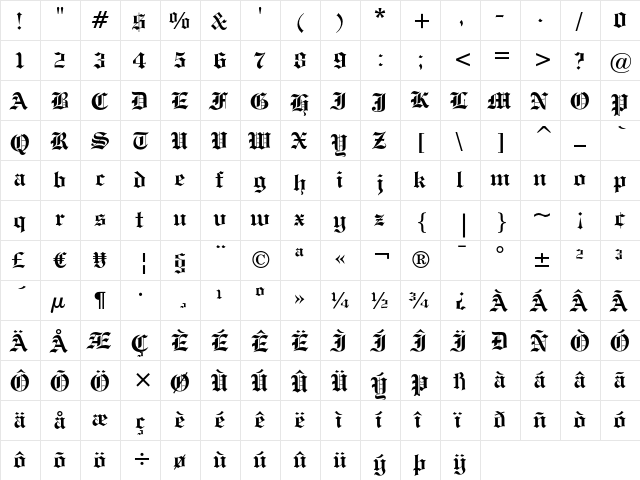
Engravers' Old English Bold
Design Context for Engravers' Old English Typeface
Engravers' Old English takes a measured approach to typography — its balanced proportions and neutral character make it a reliable workhorse for both digital and print work. Its bold stroke weight gives it real presence on the page.